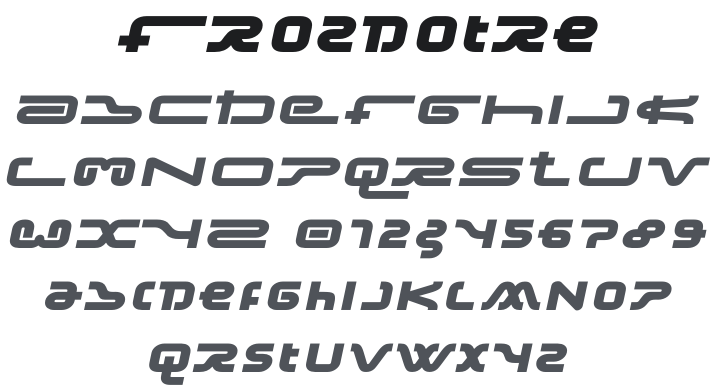
Frozdotre Font
About Frozdotre
Frozdotre is a wide, methodical techno display typeface with bold, geometric letterforms that capture the mid-1990s graphic design aesthetic perfectly — structured, angular, and self-consciously futuristic in that distinctly Y2K way. Its broad proportions give it a commanding presence at headline sizes. Great for retro-90s themed designs, sci-fi branding, tech posters, game interfaces, and nostalgic digital era aesthetics.